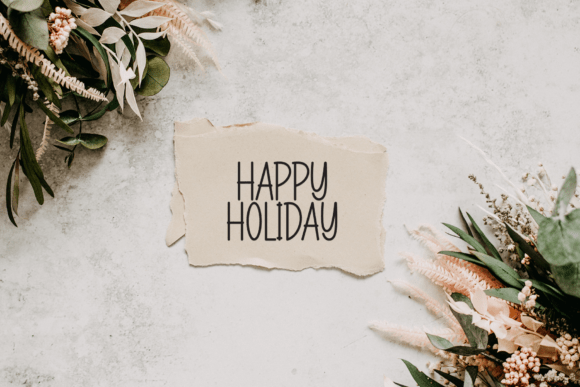
Introducing Windows Varsity Font: The Perfect Blend of Simplicity and Friendliness
In the world of typography, fonts play a crucial role in conveying the tone and personality of a brand or design. With numerous font styles available, finding the perfect one that combines simplicity with a friendly, approachable vibe can be a daunting task. However, if you’re looking for a font that embodies modern handwritten typography with a polished finish, look no further than the Windows Varsity Font.
What is Windows Varsity Font?
Windows Varsity is a casual and neat display font that has been designed to capture the essence of modern handwritten typography. Featuring clean lines, balanced letterforms, and subtle rounded edges, this font exudes a warm and inviting touch that is perfect for a wide range of design applications.
Whether you’re looking to create a brand identity, design a headline, or package a product, the Windows Varsity Font is an excellent choice. Its crisp structure and versatile style make it an ideal font for adding clarity and charm to any design.
Key Features of Windows Varsity Font
- Clean Lines: The font features clean lines that give it a modern and sleek look.
- Balanced Letterforms: The letterforms are balanced, ensuring that the font is easy to read and understand.
- Subtle Rounded Edges: The subtle rounded edges give the font a friendly and approachable vibe.
- Modern Handwritten Typography: The font captures the essence of modern handwritten typography with a polished finish.
- Versatile Style: The font has a versatile style that makes it suitable for a wide range of design applications.
Design Applications of Windows Varsity Font
The Windows Varsity Font is an excellent choice for various design applications, including:
- Branding: The font is perfect for creating a brand identity that is modern, friendly, and approachable.
- Headlines: The font is ideal for designing headlines that are clear, concise, and attention-grabbing.
- Packaging: The font is suitable for packaging designs that require a modern and sleek look.
- Digital Content: The font is perfect for digital content, such as blog posts, social media, and website designs.
Benefits of Using Windows Varsity Font
Using the Windows Varsity Font offers several benefits, including:
- Improved Readability: The font is easy to read and understand, making it perfect for digital content.
- Enhanced Visual Appeal: The font’s clean lines, balanced letterforms, and subtle rounded edges make it visually appealing.
- Versatility: The font’s versatile style makes it suitable for a wide range of design applications.
- Time-Saving: The font’s modern and sleek design saves time and effort in creating a professional-looking design.
In conclusion, the Windows Varsity Font is an excellent choice for designers looking for a modern, friendly, and approachable font. With its clean lines, balanced letterforms, and subtle rounded edges, this font is perfect for a wide range of design applications. Its versatility, readability, and visual appeal make it an ideal font for adding clarity and charm to any design.
- What is the Windows Varsity Font? The Windows Varsity Font is a casual and neat display font that combines simplicity with a friendly, approachable vibe.
- What are the key features of the Windows Varsity Font? The font features clean lines, balanced letterforms, and subtle rounded edges.
- What design applications is the Windows Varsity Font suitable for? The font is suitable for branding, headlines, packaging, and digital content.
- What are the benefits of using the Windows Varsity Font? The font offers improved readability, enhanced visual appeal, versatility, and time-saving.